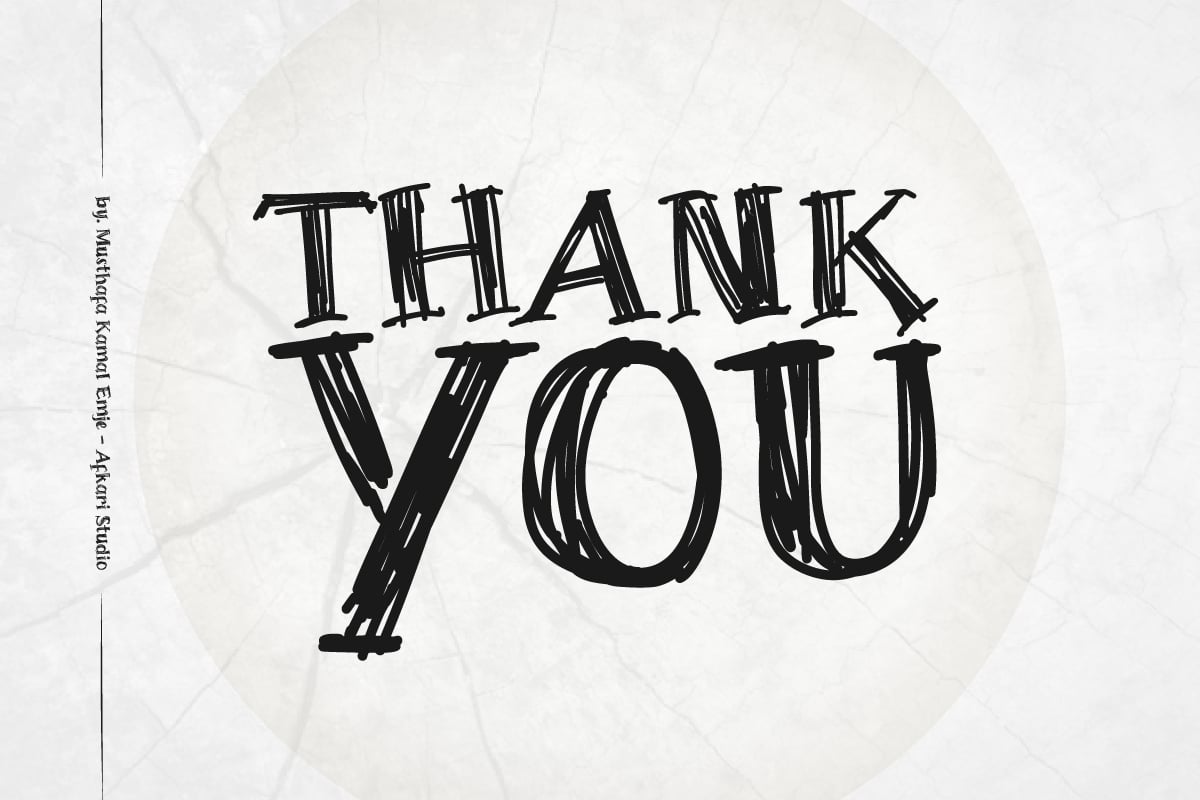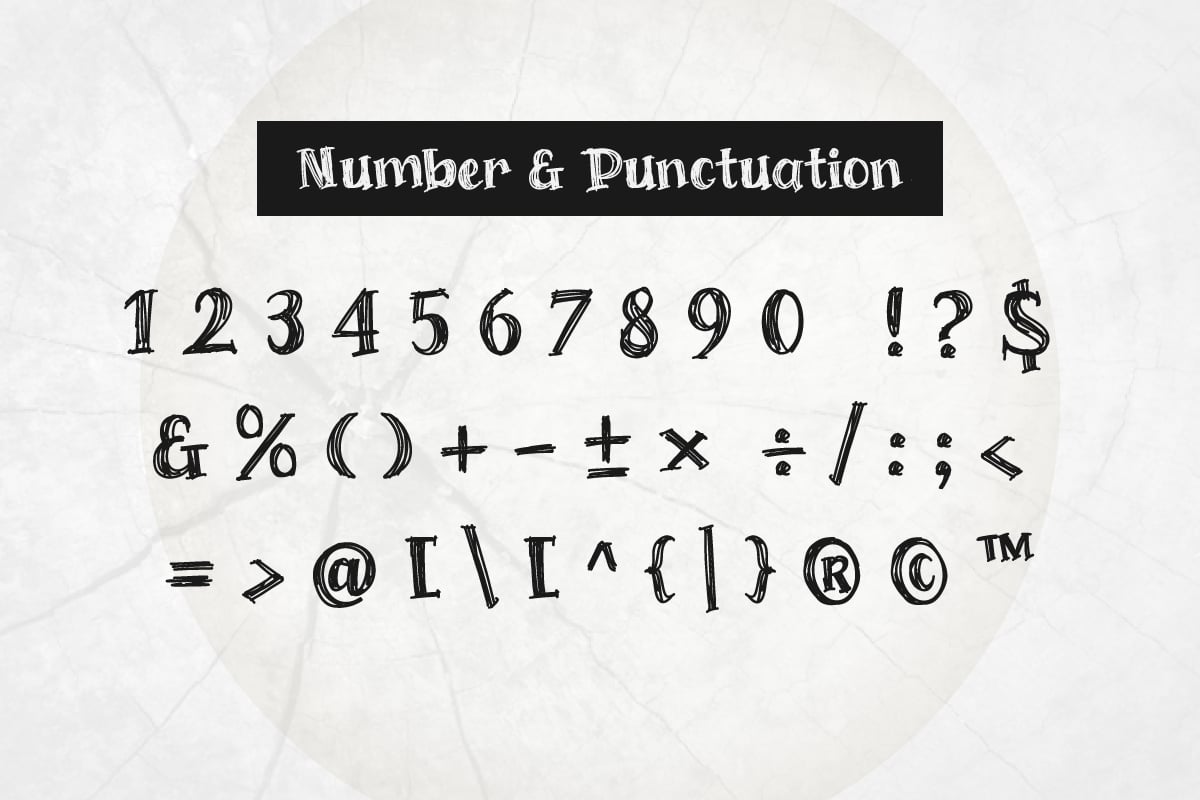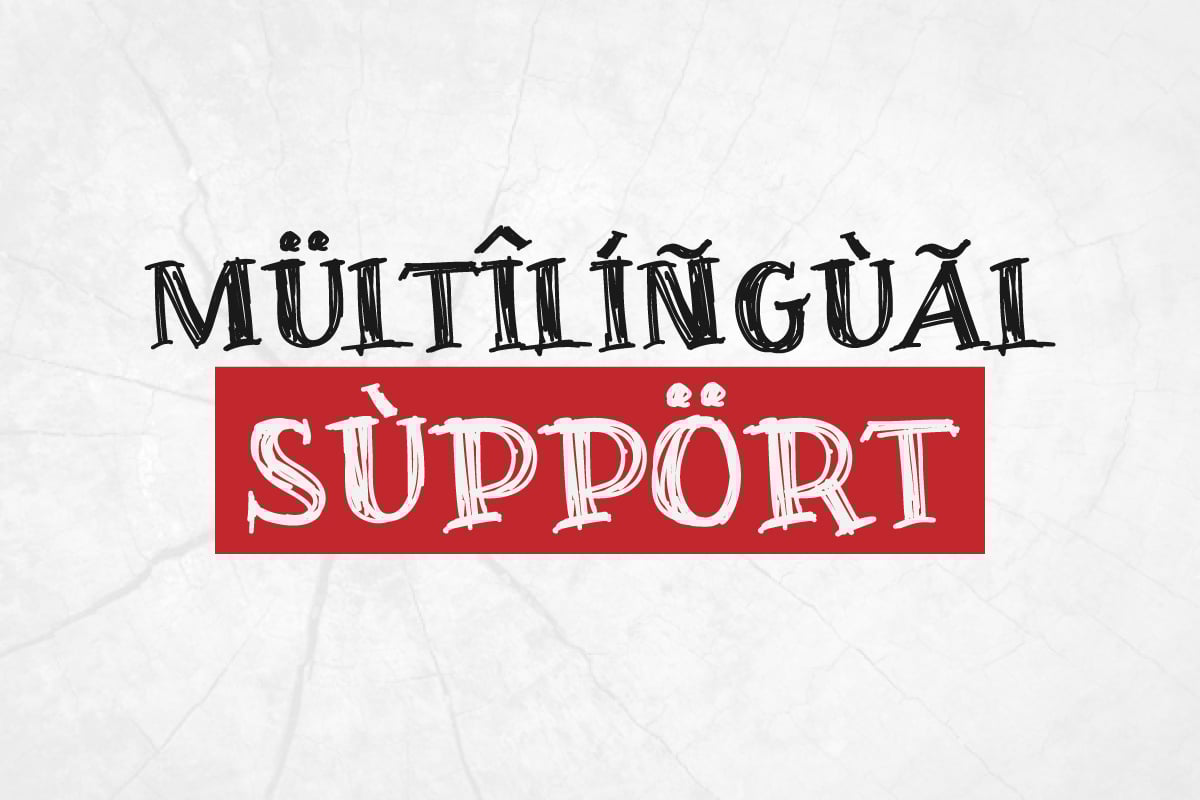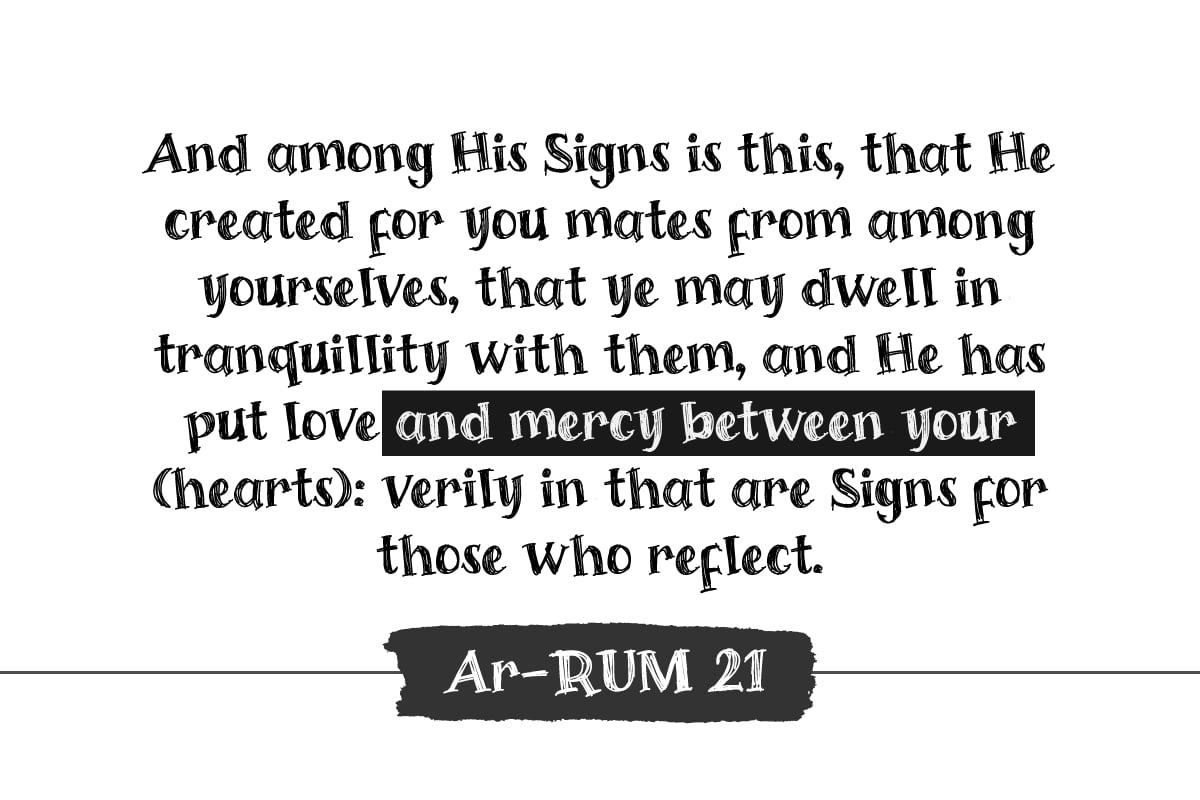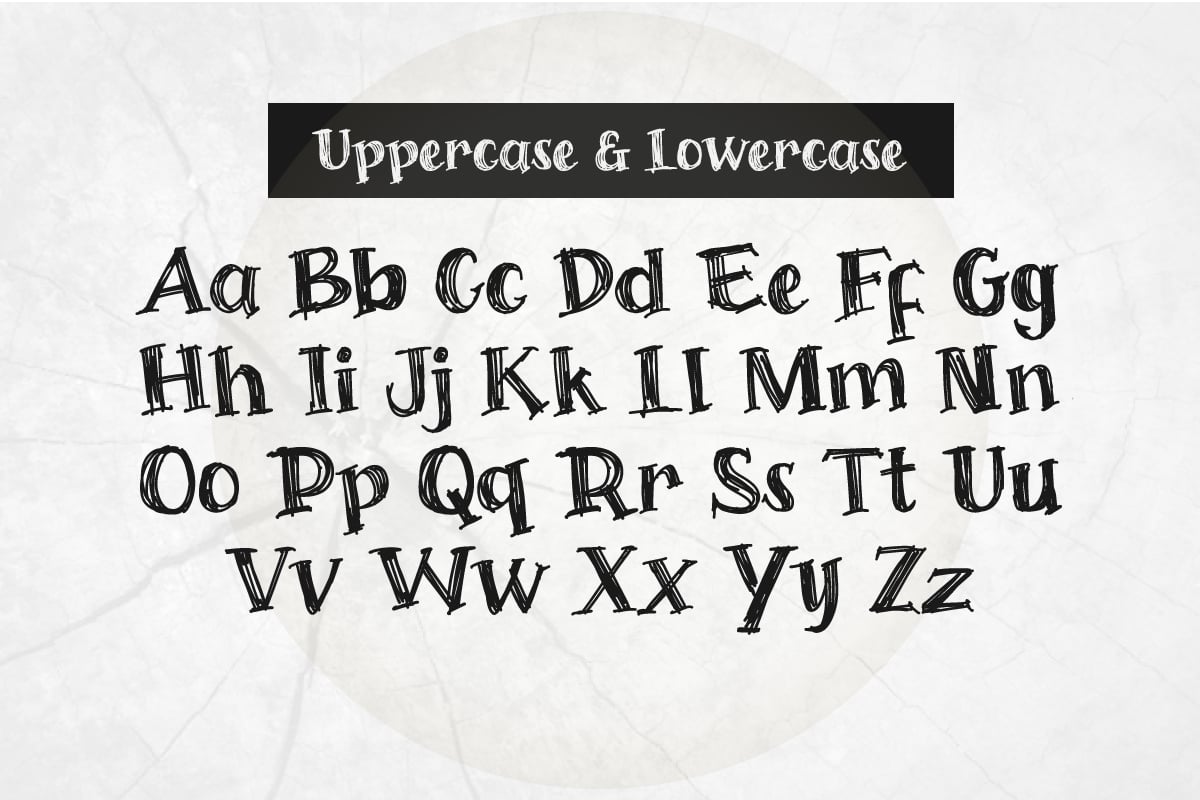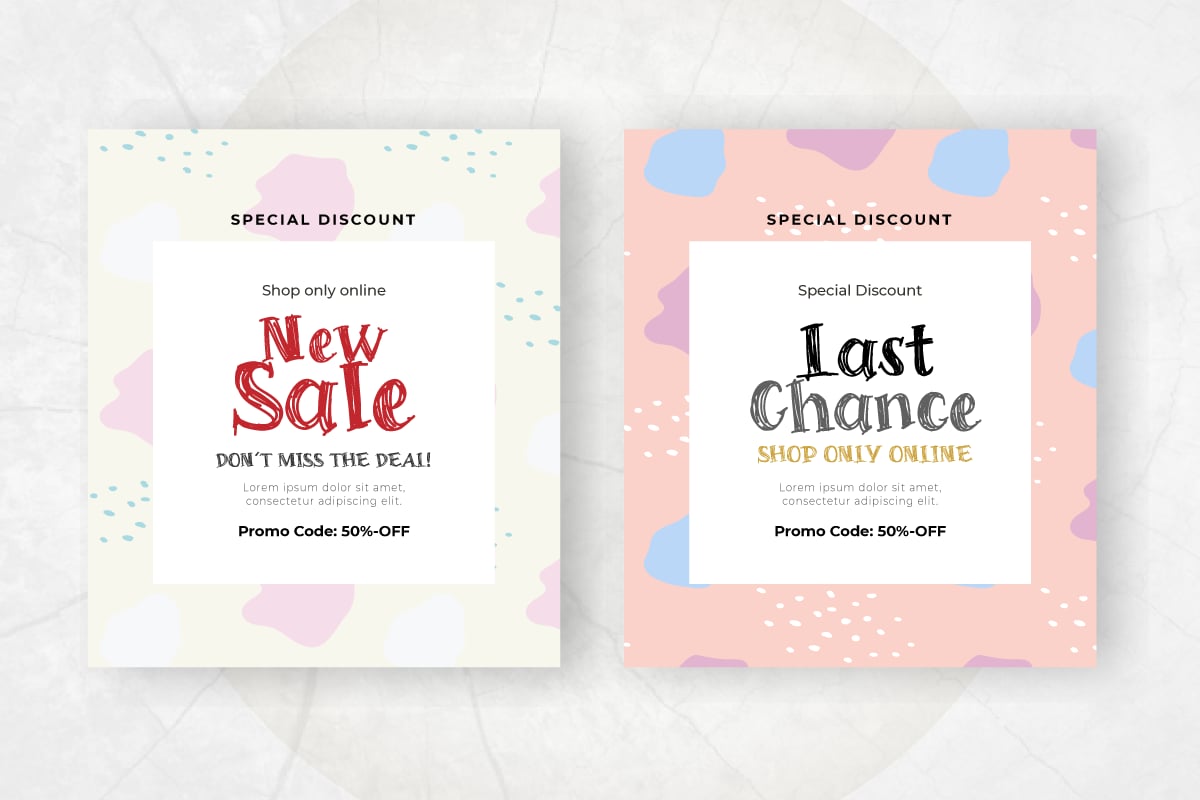
Atalon Pro – A Scratch Handwritten Font
Atalon Pro Is A Scratch Handwritten font made with the natural scratch typeface. Written loosely and with a special balanced look as authentic handwriting font. Atalon A Scratch is Perfect to use in all your projects that call for a natural handwritten, easy legible hand-drawn font.
- Numerals & basic punctuations
- Regular style